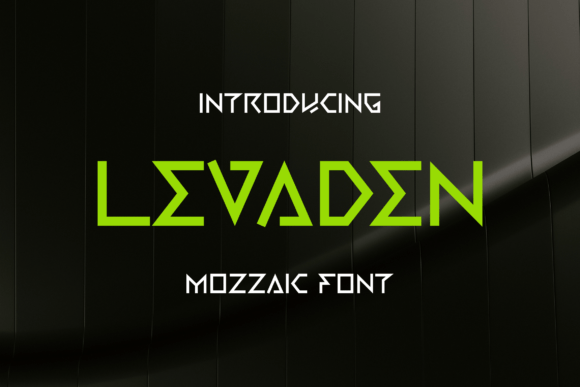
Introducing Levaden Font, the display font that will ignite your designs with its electrifying energy and dynamic style. Crafted by the masterful hands at Monoletter, Levaden is not just a typeface; it's a portal to a world of adrenaline, speed, and technological prowess.
Its striking zig-zag shape is a visual symphony, a harmonious dance of angles and curves that commands attention. Levaden is more than a font; it's an embodiment of motion, a visual representation of the rush that comes from pushing limits and embracing the thrill of the chase.
Unleash your creativity and let Levaden fuel your imagination. Its sharp edges and dynamic flow are a perfect match for projects that demand impact, style, and a touch of the extraordinary. Whether you're designing for websites, posters, branding, or any other venture where visual impact is paramount, Levaden will elevate your work to new heights.
Immerse yourself in the world of Levaden, where technology and design collide in a breathtaking fusion. Its versatility knows no bounds, effortlessly adapting to a myriad of projects. From futuristic interfaces to adrenaline-pumping sports graphics, Levaden empowers you to create designs that resonate with passion, power, and a relentless pursuit of excellence.
Don't settle for ordinary fonts. Embrace the extraordinary with Levaden. Its captivating charm will leave an indelible mark on your audience, igniting their senses and leaving them craving for more. Experience the thrill of Levaden today, and let your designs soar to unprecedented heights.